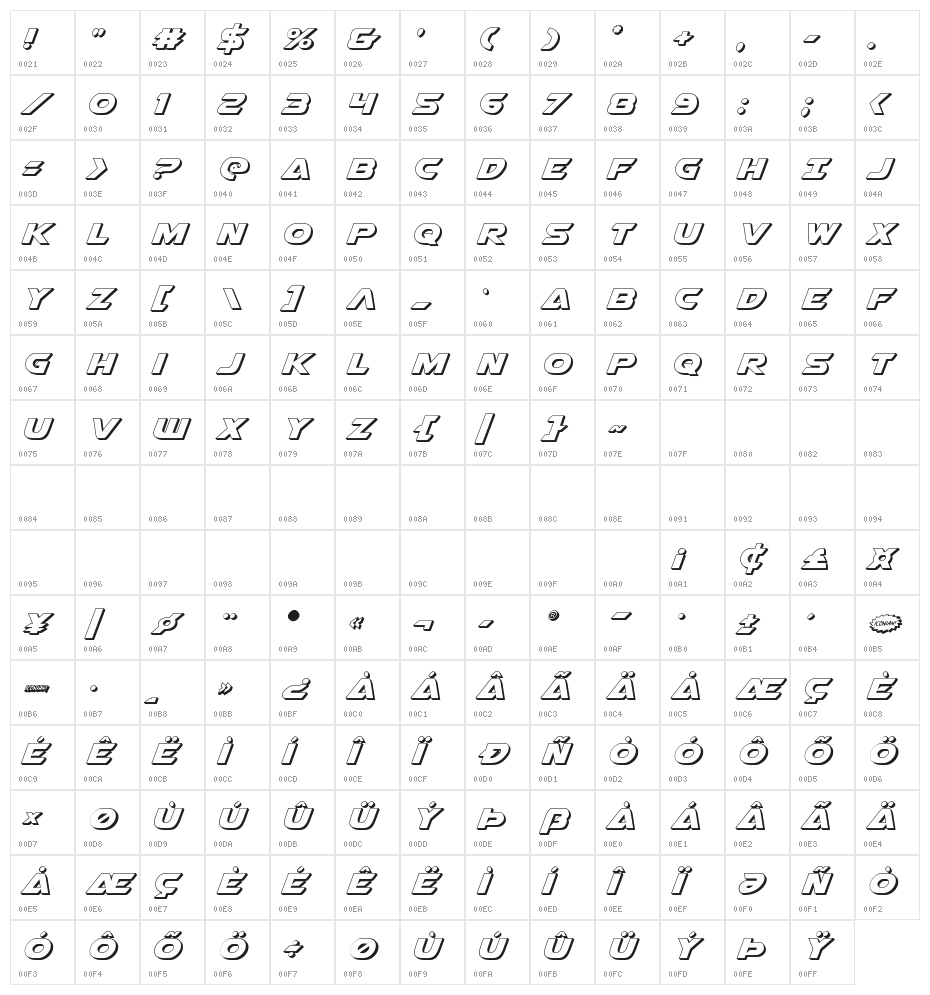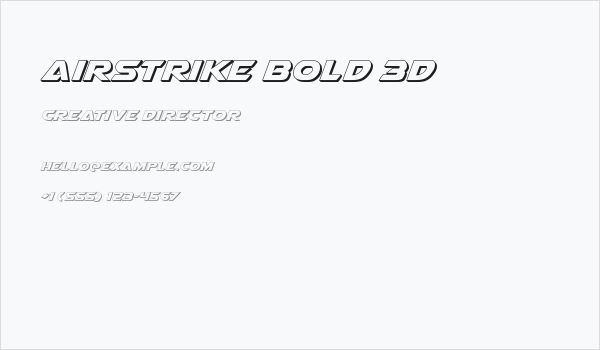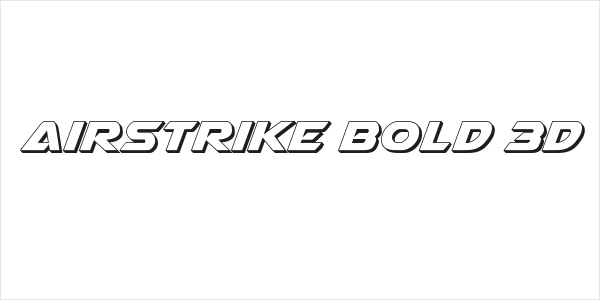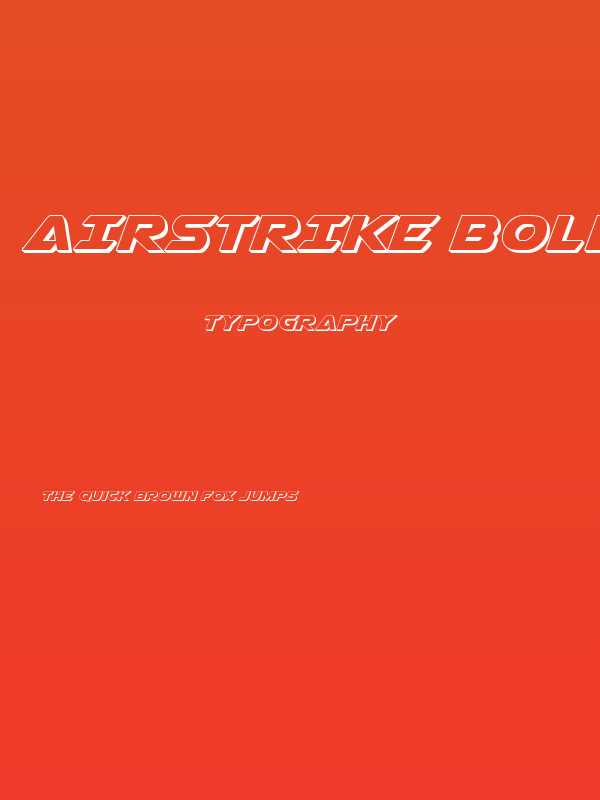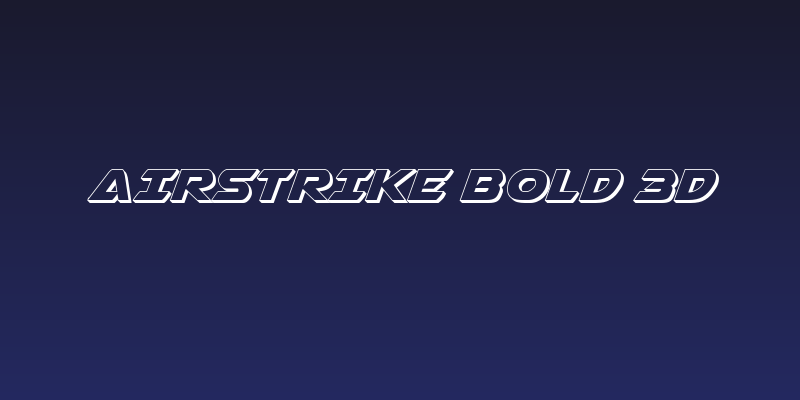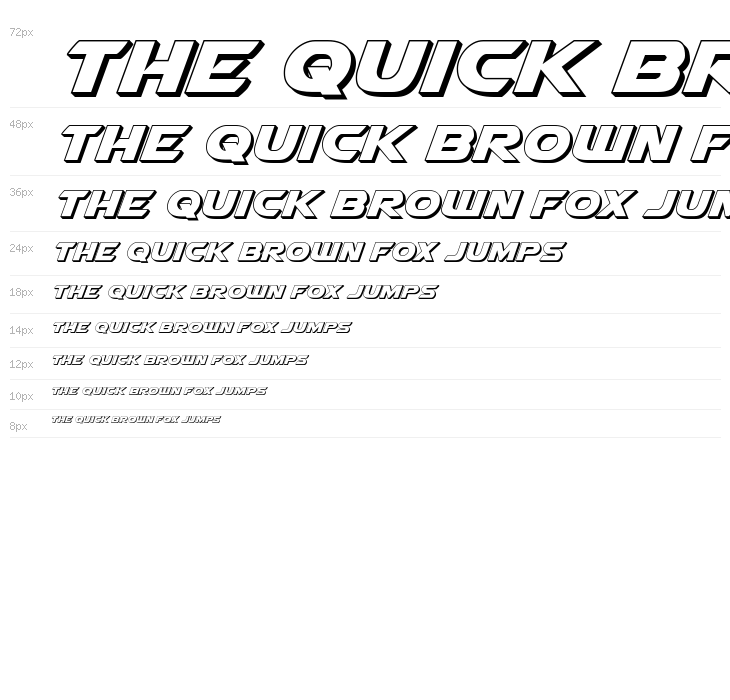
Airstrike Bold 3D Font
Airstrike Bold 3D Description
This bold 3D font features a dynamic and impactful design, characterized by its strong, angular lines and shadowed effect that gives a sense of depth. The uppercase letters are prominent and convey a sense of urgency and power, making it ideal for attention-grabbing headlines. The numbers and special characters maintain the same bold and three-dimensional style, ensuring consistency across all text elements. The font's design is modern and slightly futuristic, suitable for projects that require a bold statement.
Proposed ProjectsIdeal for posters, video game titles, sports branding, and any project needing a bold, impactful typeface.